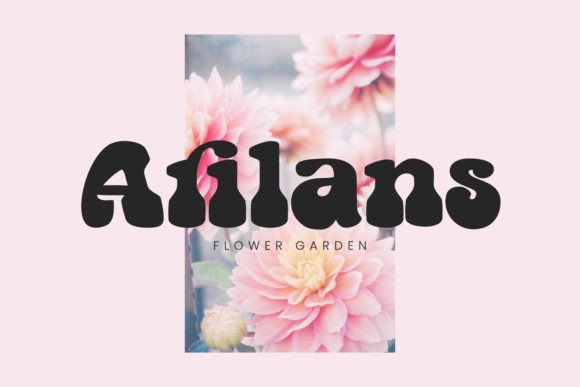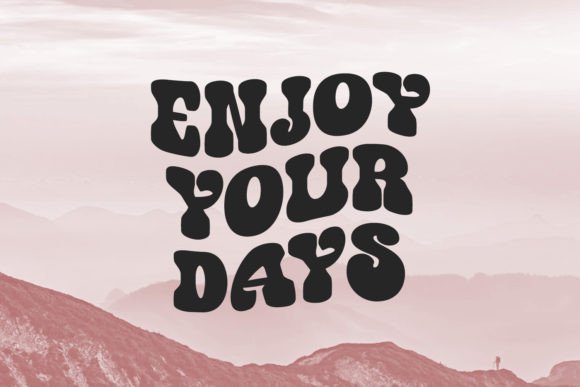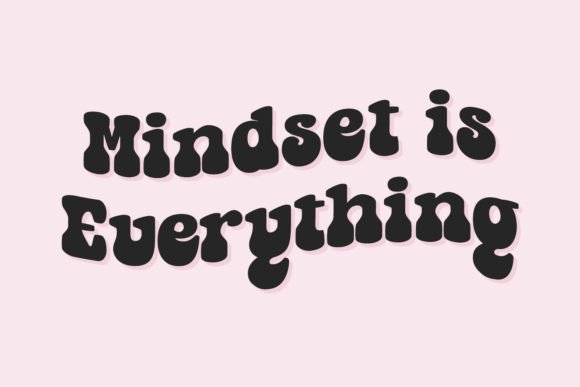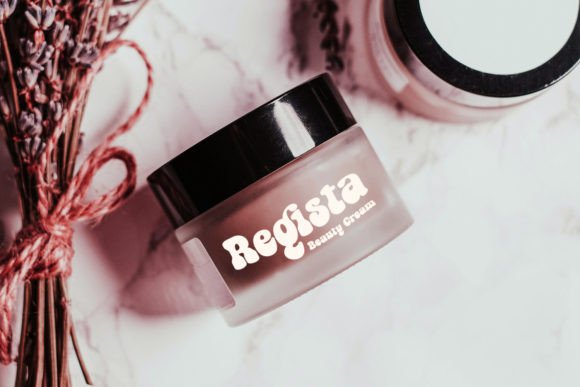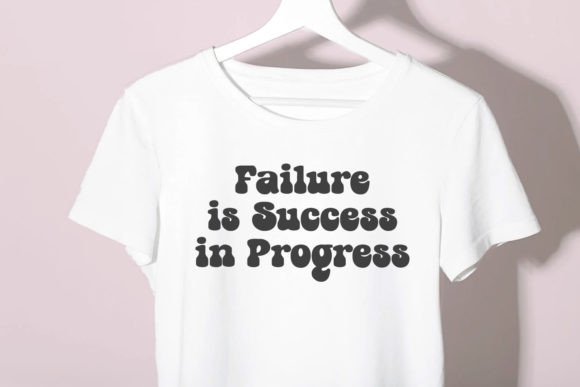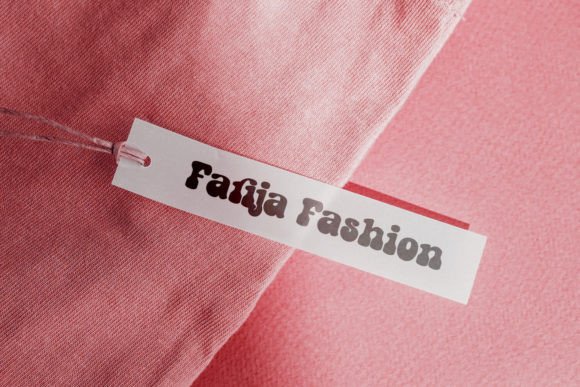
Introducing Coming Peak Font: The Epitome of Modern Display Typography
In the realm of typography, a new star has emerged, captivating the attention of designers and crafters alike. Say hello to Coming Peak, a striking display font that embodies the essence of modernity with its bold design and rounded shapes. This meticulously crafted font is poised to revolutionize the way we approach display typography, offering a unique blend of power, elegance, and versatility.
The Design Philosophy of Coming Peak
Coming Peak is more than just a font – it’s a statement piece. Crafted with a thick weight and high contrast, this font commands attention and makes a powerful statement in any design application. The letters of Coming Peak are thoughtfully designed with rounded shapes that exude a sense of softness and elegance. Despite its boldness, the rounded edges lend a touch of warmth and approachability to the font, making it perfect for a wide range of design projects.
Key Features of Coming Peak Font
• Bold Design: Coming Peak boasts a thick weight that ensures it stands out in any design, making it perfect for headlines, titles, and emphasis.
• Rounded Shapes: The rounded edges of Coming Peak add a touch of warmth and approachability, balancing out its boldness and making it more versatile.
• High Contrast: The high contrast of Coming Peak enhances its visual appeal, creating a sense of depth and dimensionality that draws the viewer in.
• Legibility: Despite its bold design, Coming Peak is remarkably legible, even at smaller sizes, making it suitable for a wide range of applications.
Versatility and Adaptability
One of the standout features of Coming Peak is its versatility. This font is equally effective in both print and digital media, making it a valuable addition to any designer’s toolkit. Whether you’re working on a brochure, poster, website, or social media graphic, Coming Peak is sure to make a lasting impression.
Applications of Coming Peak Font
So, where can you use Coming Peak? The possibilities are endless! Here are a few ideas to get you started:
• Headlines and Titles: Use Coming Peak to create attention-grabbing headlines and titles that demand attention.
• Branding and Logo Design: Coming Peak’s bold design and rounded shapes make it an excellent choice for logos and branding materials.
• Advertising and Marketing: Use Coming Peak to create eye-catching ads and marketing materials that stand out from the crowd.
• Web Design: Add a touch of modernity to your website with Coming Peak, perfect for headings, titles, and emphasis.
Why Choose Coming Peak Font?
With so many fonts available, why choose Coming Peak? Here are just a few reasons why this font stands out:
• Unique Design: Coming Peak’s bold design and rounded shapes make it a one-of-a-kind font that’s sure to turn heads.
• Versatility: This font is adaptable to a wide range of design applications, making it a valuable addition to any designer’s toolkit.
• Legibility: Coming Peak is remarkably legible, even at smaller sizes, making it perfect for a wide range of applications.
In conclusion, Coming Peak is a game-changing display font that’s sure to revolutionize the way we approach typography. Its bold design, rounded shapes, and high contrast make it a powerful statement piece that’s perfect for designers and crafters alike. Whether you’re working on a print or digital project, Coming Peak is sure to make a lasting impression.
Font Name Coming Peak Font
Author Yumna_Type